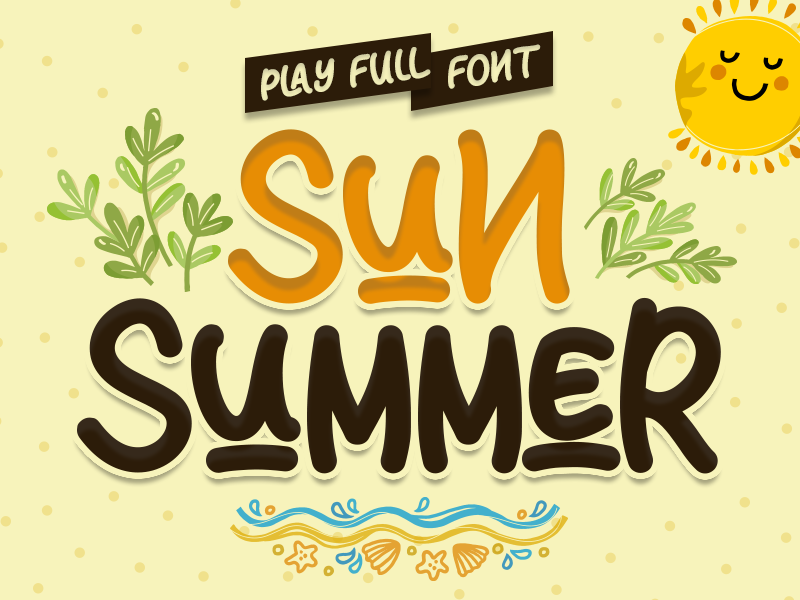
Sun Summer
Sun Summer, created by Sakha Design, is a delightful handwritten font that embodies the warmth and carefree spirit of the summer season. This typeface boasts a playful and relaxed aesthetic, making it perfect for projects that require a personal, human touch. Each letter is distinctively crafted, with a casual, flowing form that captures the essence of handwriting drawn in sun-soaked sand or on a lazy day’s postcard.
The characters in Sun Summer are characterized by their rounded, slightly irregular shapes, which exude a harmonious and friendly vibe. The strokes are consistent in weight, maintaining a balanced look that is smooth and approachable. This consistency, paired with subtle variations in each character, gives the font a natural, authentic feel.
The uppercase letters are bold and prominent, yet they retain a softness that avoids harshness, making them ideal for headlines that need to catch the eye without sacrificing charm. The lowercase letters complement the uppercase perfectly, with an airy, informal aesthetic that ensures readability and maintains a whimsical tone. Punctuation and numerals align seamlessly with the overall design, ensuring that the font is versatile enough for various applications, from invitations and greeting cards to social media graphics and home décor.
One of the distinguishing features of Sun Summer is its ability to evoke a feeling of nostalgia and simplicity. It’s the kind of font that can transport you to a leisurely day at the beach, encouraging relaxation and cheerfulness. The handwriting nature of Sun Summer makes it a fantastic choice for any project that aims to convey warmth, personality, and a hint of the joyous summer season.